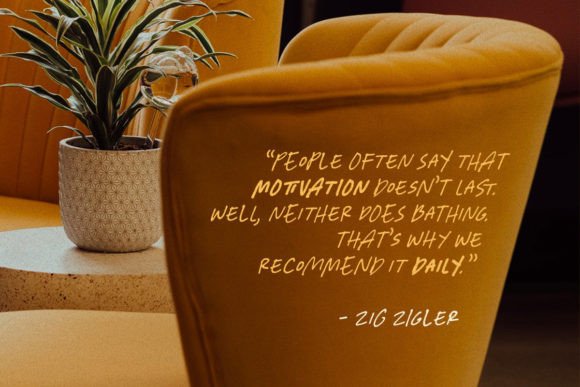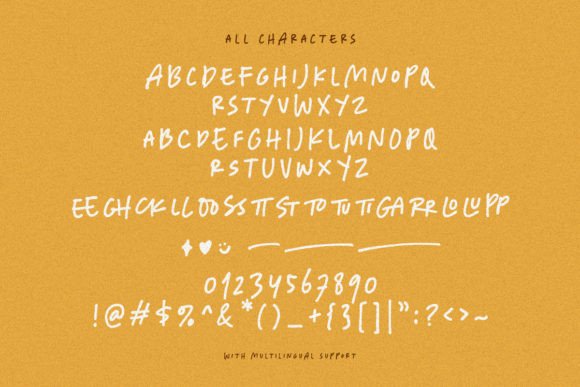
The Bright Topic Font
The Bright Topic is a fun and friendly handwritten font. Cute, whimsical, and joyful this font will definitely brighten up each of your designs.